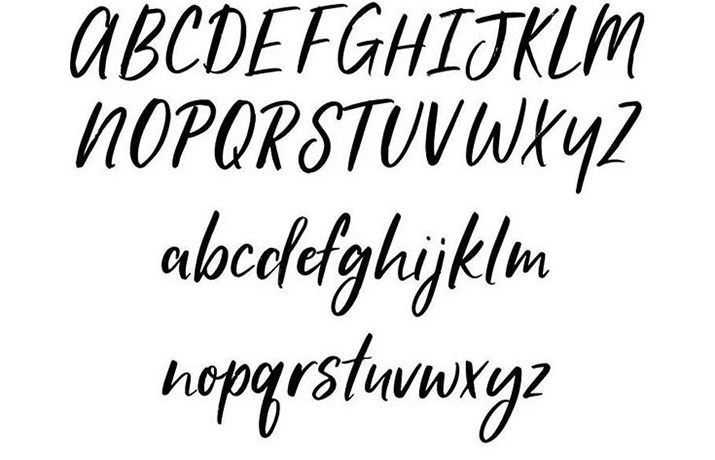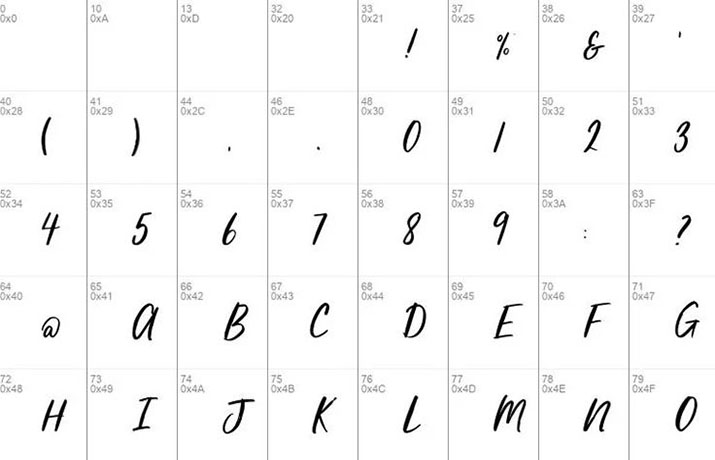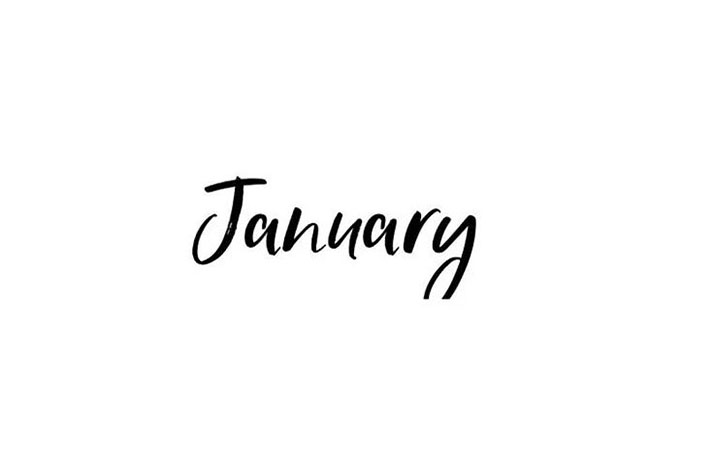
January Font is a script handwritten typeface that has a playful and casual look. It was designed and published by Jamijames.
All textures are handmade in which the designer puts uniqueness with improper baselines. Both its height and width are smaller than standard sizes. And the space between the letters is also very tide.
Its fun and dynamic style makes it an ideal choice for a wide range of purposes such as wedding & greeting cards, special quotes, brochures, birthday cards, flyers, signatures, and more.
“January typeface comes in a single style along with Open Type file formats. This single style contains 81 glyphs, numbers, and 2473 binary stored kerning pairs. Moreover, it also supports 58 global languages”.
- This sophisticated typeface can also be used for many other chic applications, such as shopping bags, brand logos, product packaging, banners, signs, banners, invitations, birthday cards, headers, letterhead, signage, labels, news, posters, card printing, movie posters, game graphics, special cards, t-shirts, magazines, books, greeting/wedding cards, signs, banners, labels, and birthday cards.